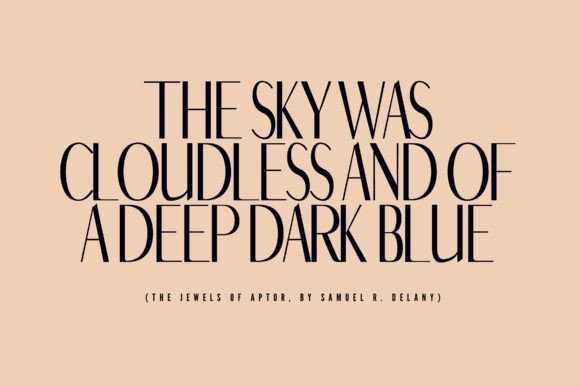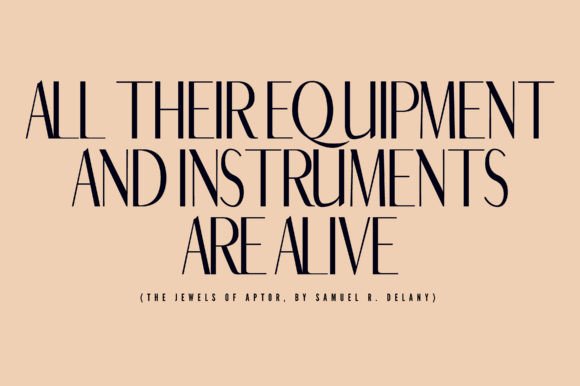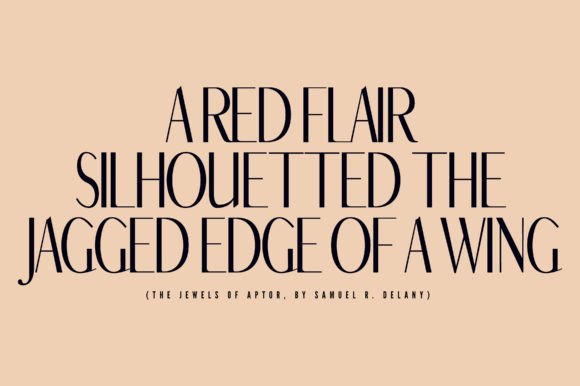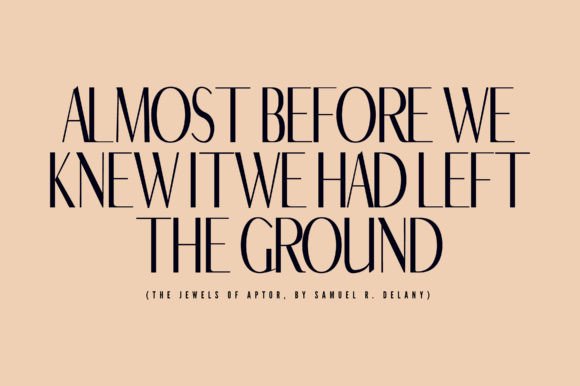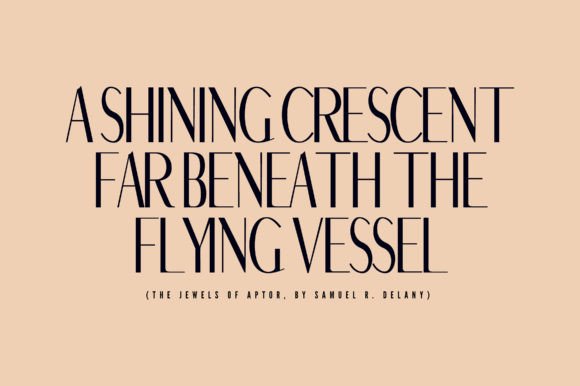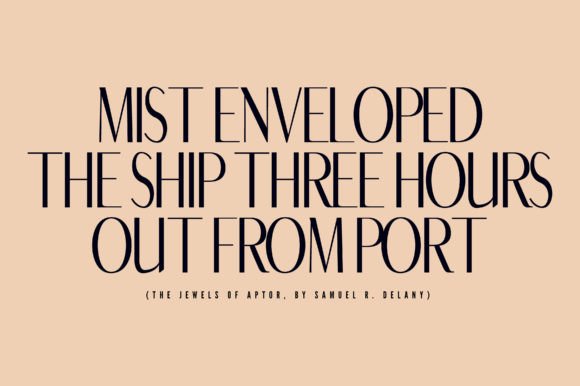
Introduction to Norway Font
Norway is a chic, elegant, and minimalist sans serif font perfect for branding, logos, websites, print layouts, and many more.
Whether youโre a seasoned designer or just starting out, Norway is the font that will take your designs to the next level So why settle for anything less than perfection.
Key Features of Norway Font
Why Choose Norway Font?
Norway Font offers exceptional quality and versatility, making it a valuable addition to your design toolkit. Whether you’re creating for personal projects or commercial use, Norway Font delivers professional results.